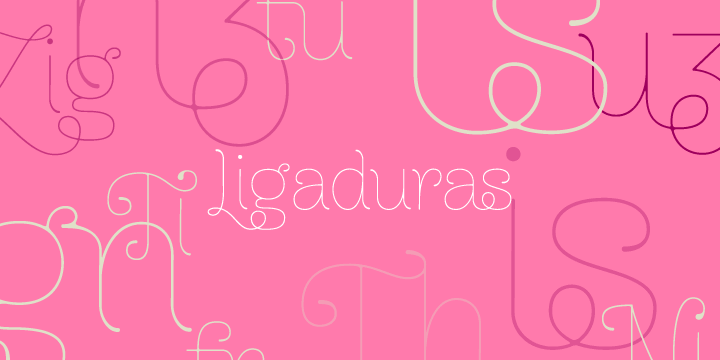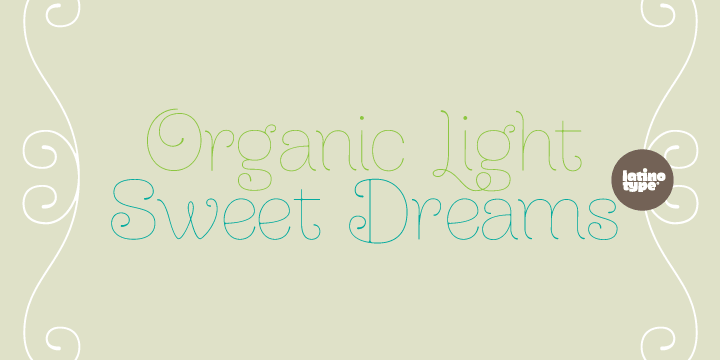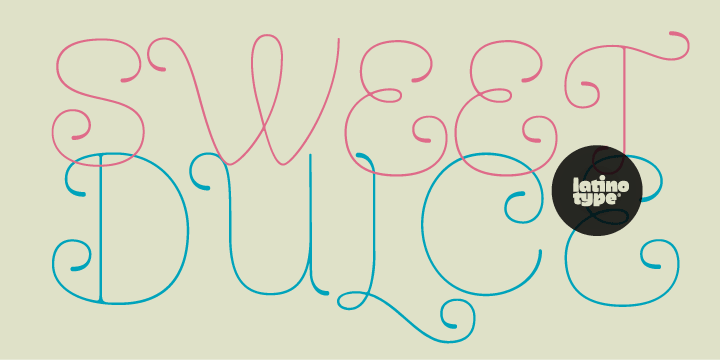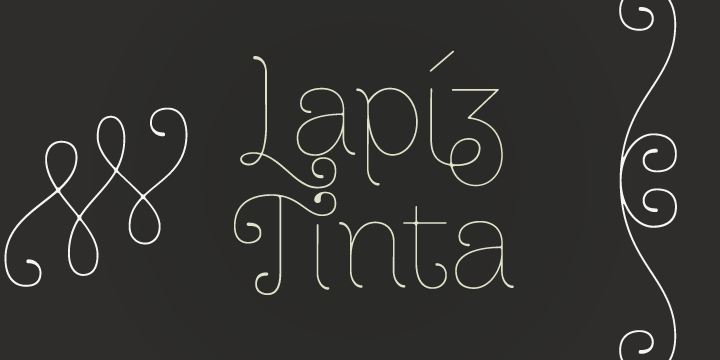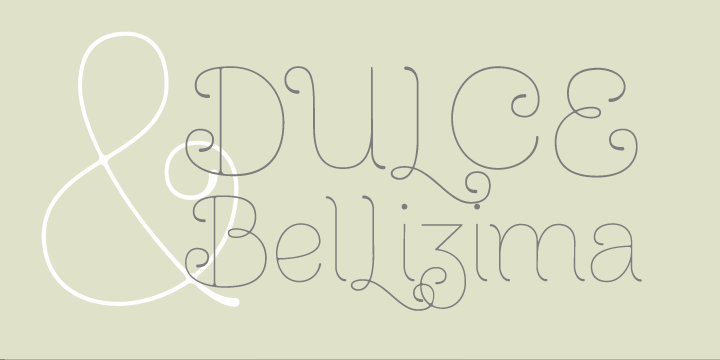
Dulce is a script font published by Latinotype.
Dulce is a swash typeface with an elegant and romantic touch. It is thin, but it becomes thick where two terminals meet and it also has swelling at terminals. Its wide range of ligatures makes it a versatile typeface, suitable for headlines and short phrases. You will see all of these ligatures on the screen, enabling “standard ligatures” and “discretionary ligatures” options. Ornaments are also included, which can be very useful for designing. Dulce is ideal for magazines, logotypes, advertising, etc. Use it for whatever you want and enjoy!